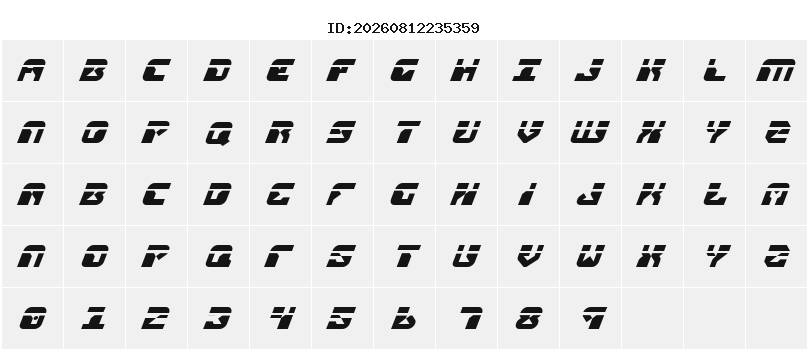
• Font Name: Replicant Laser Italic
• Font Style: Laser Italic
• Font ID: Replicant Laser Italic
• Full Font Name: Replicant Laser Italic
• PostScript Name: ReplicantLaserItalic
About Replicant Laser Italic.ttf
Replicant Laser Italic.ttf is a modern, elegant sans-serif font designed for ultimate readability and visual harmony. Perfect for branding, headlines, web design, and print materials.